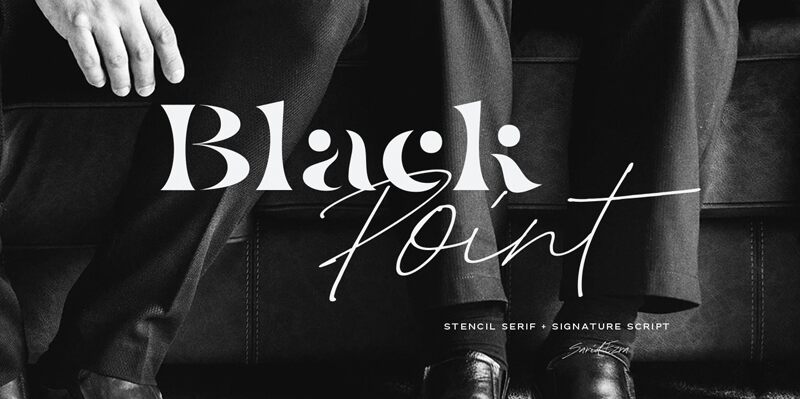
Black Point Serif, from the Black Point family, emerges as a bold and contemporary stencil font designed by the adept Saridezra. Its semi-expanded width exudes confidence, making it a standout choice for designers looking to infuse their projects with a touch of modernity and strength. This typeface is not just about its robust appearance; it's a harmonious blend of edgy stencil characteristics with the elegance of serif detailing.
The versatility of Black Point Serif shines through in its perfection for an array of creative endeavors-from branding to fashion editorials, logos to magazines. The font's inclusion of multilingual support alongside a wealth of numbers, symbols, and ligatures ensures that your designs will be both comprehensive and exquisite.
Paired effortlessly with its signature script counterpart, Black Point Serif eliminates the guesswork in finding complementary typography. This pairing invites creativity and sophistication into every design project, promising to elevate your work with its distinct presence and style.